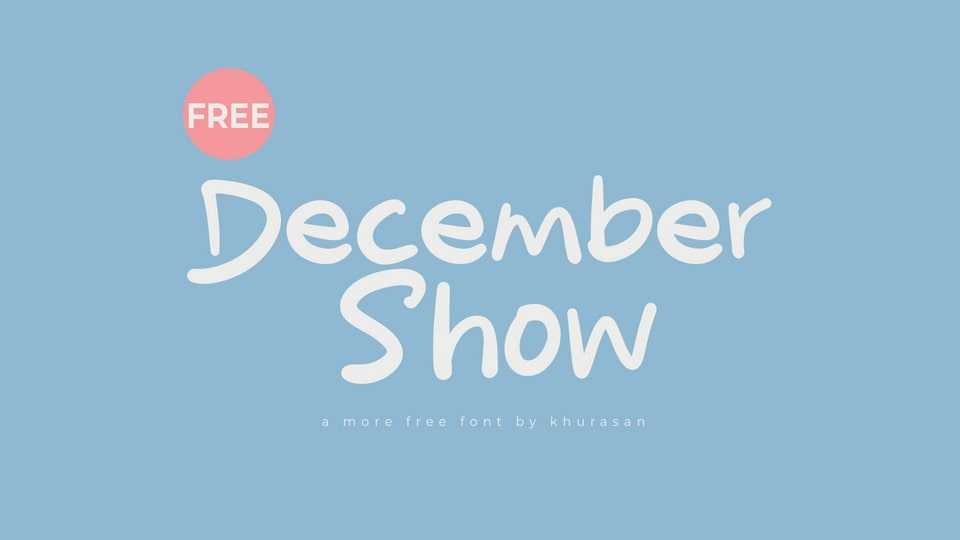
Download December Show font, a hand-drawn typeface that effortlessly captures the essence of playfulness and cuteness. Every character in December Show font is a delightful creation, featuring whimsical strokes and charming details that evoke a sense of joy and innocence.